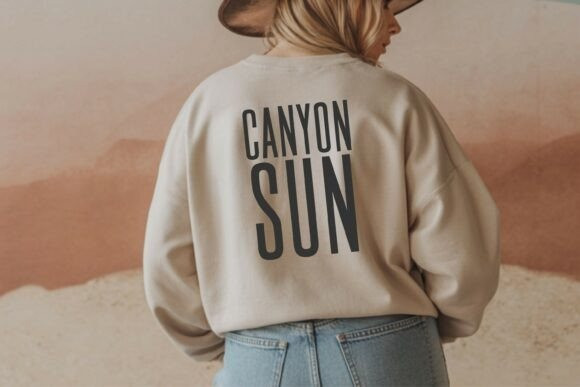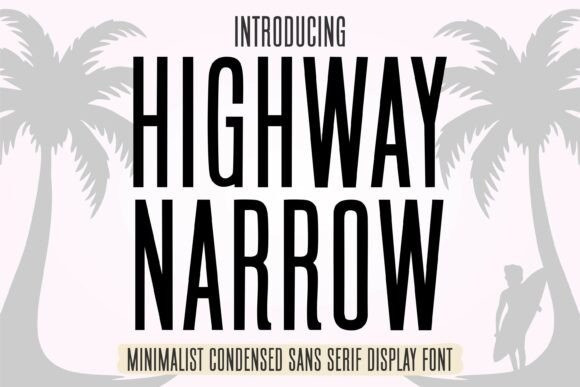
Highway Narrow Font
Highway Narrow Font, a refreshingly crisp and slender sans serif typeface perfect for any modern medium. Its sleek proportions and scaled-down details work in sync to deliver confident and captivating text impressions. The slender aesthetic of its letters introduces a refined edge to any project, ranging from fashion labels to wall art, coffee mugs to hoodies, or posters to digital platforms.
Every inch of Highway Narrow adds a splash of panache to your work, be it summer-inspired quotes, sports apparel designs, minimalist logos, or travel-themed graphics. This stylish typeface forms an enchanting blend with script fonts, carving fascinating typographic ensembles that charm the eye.